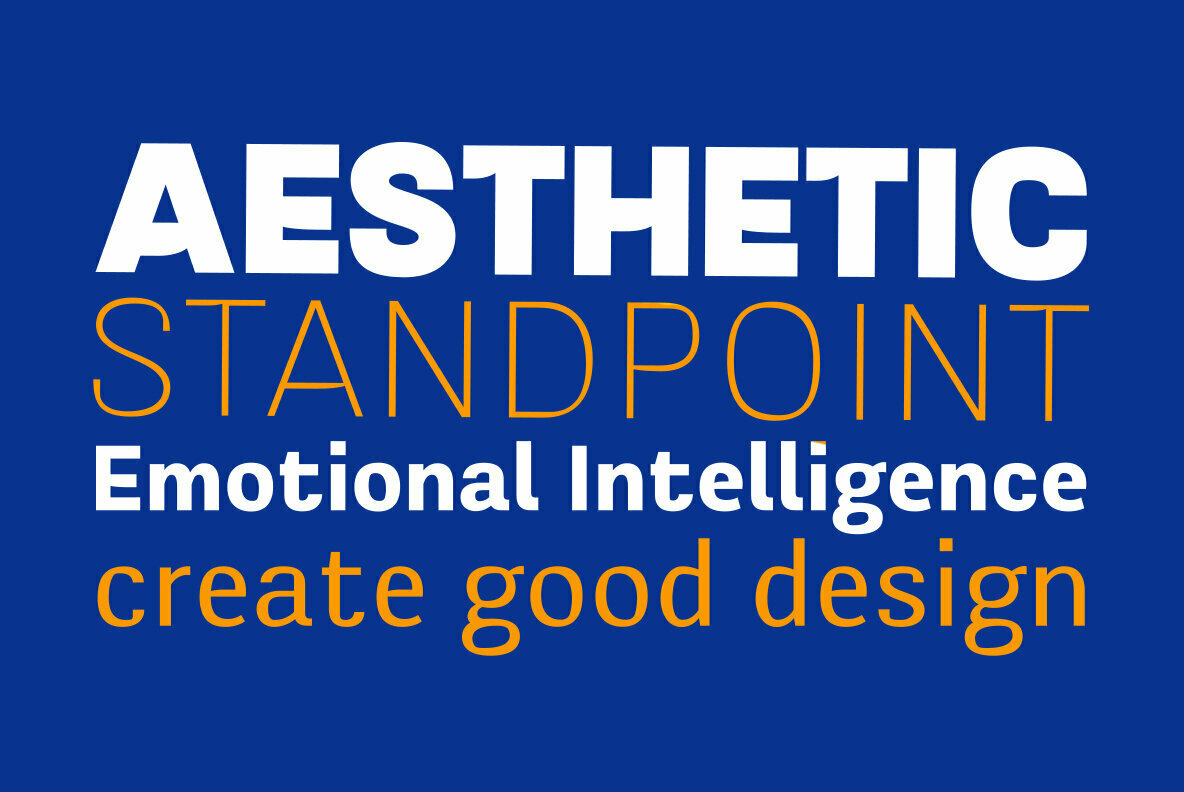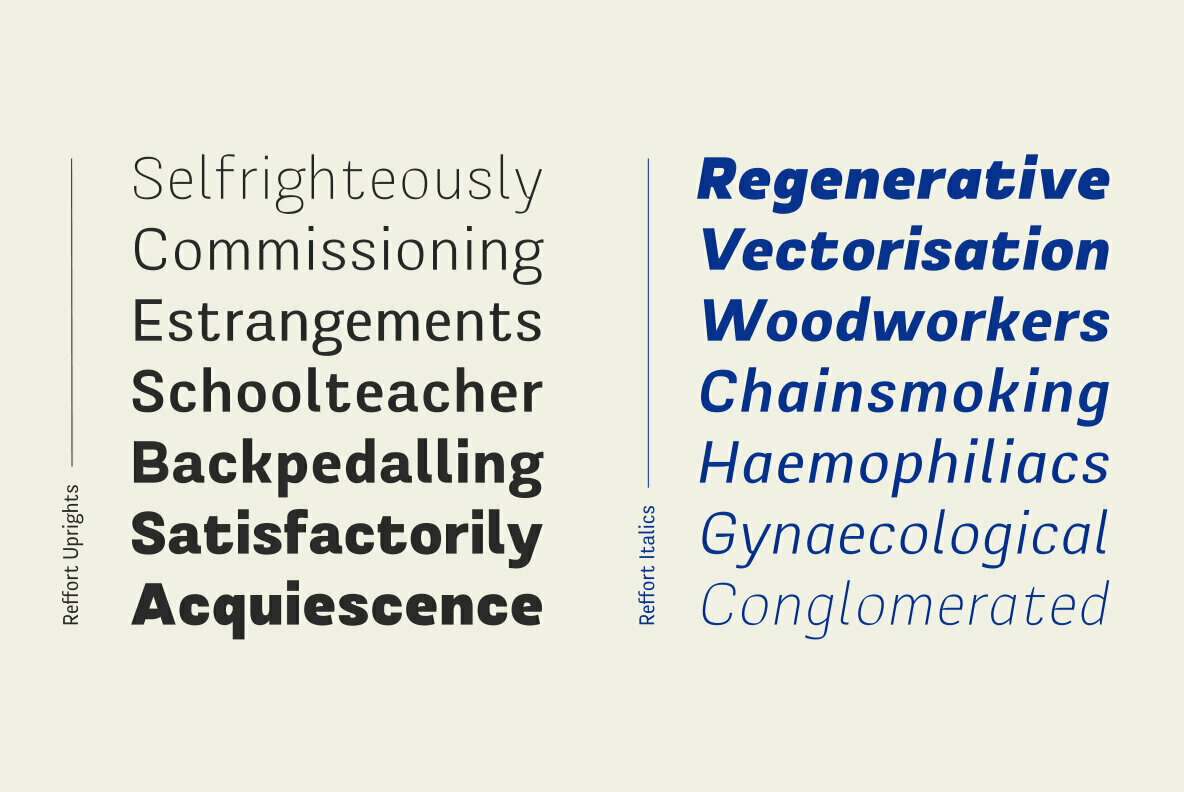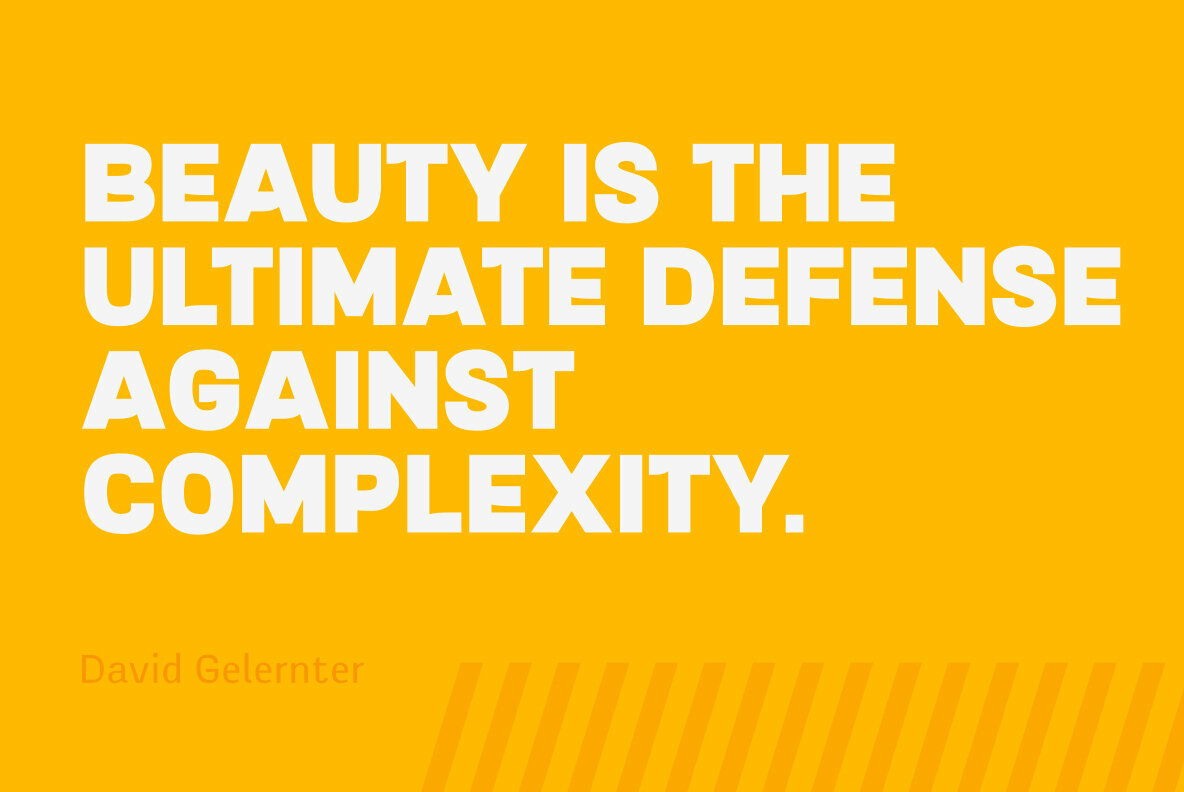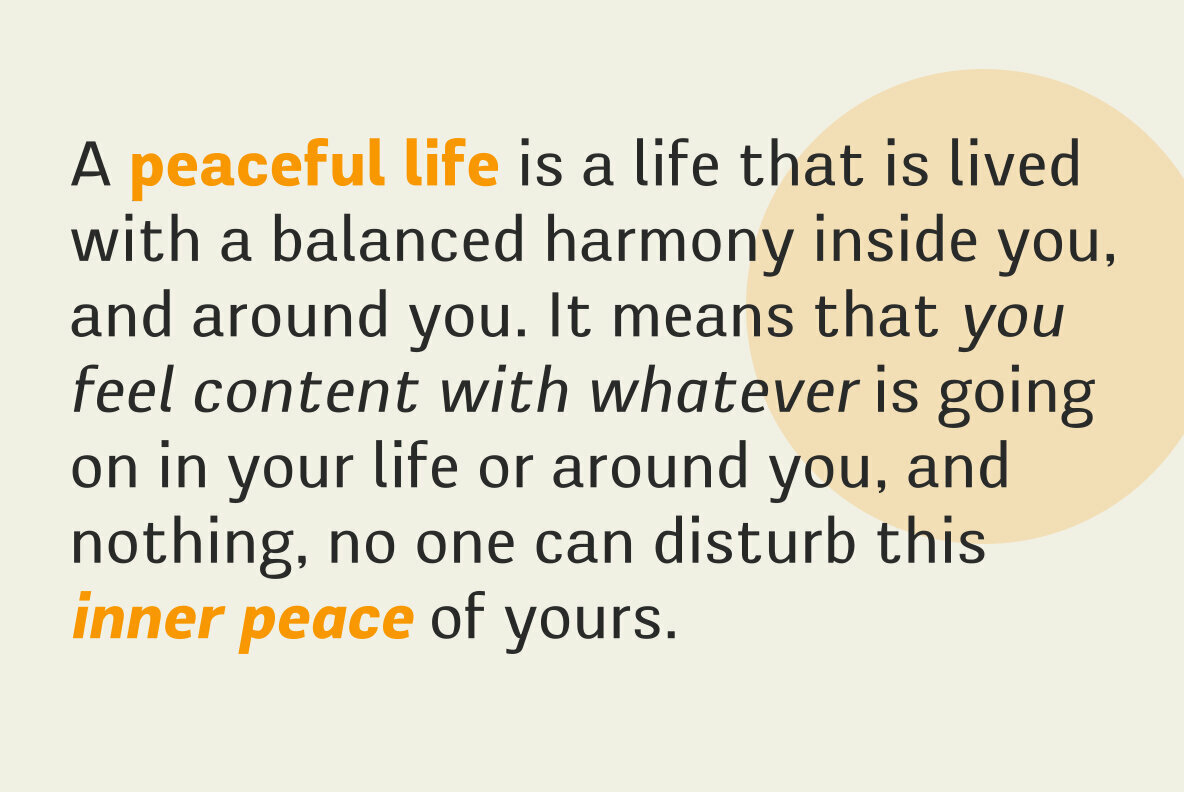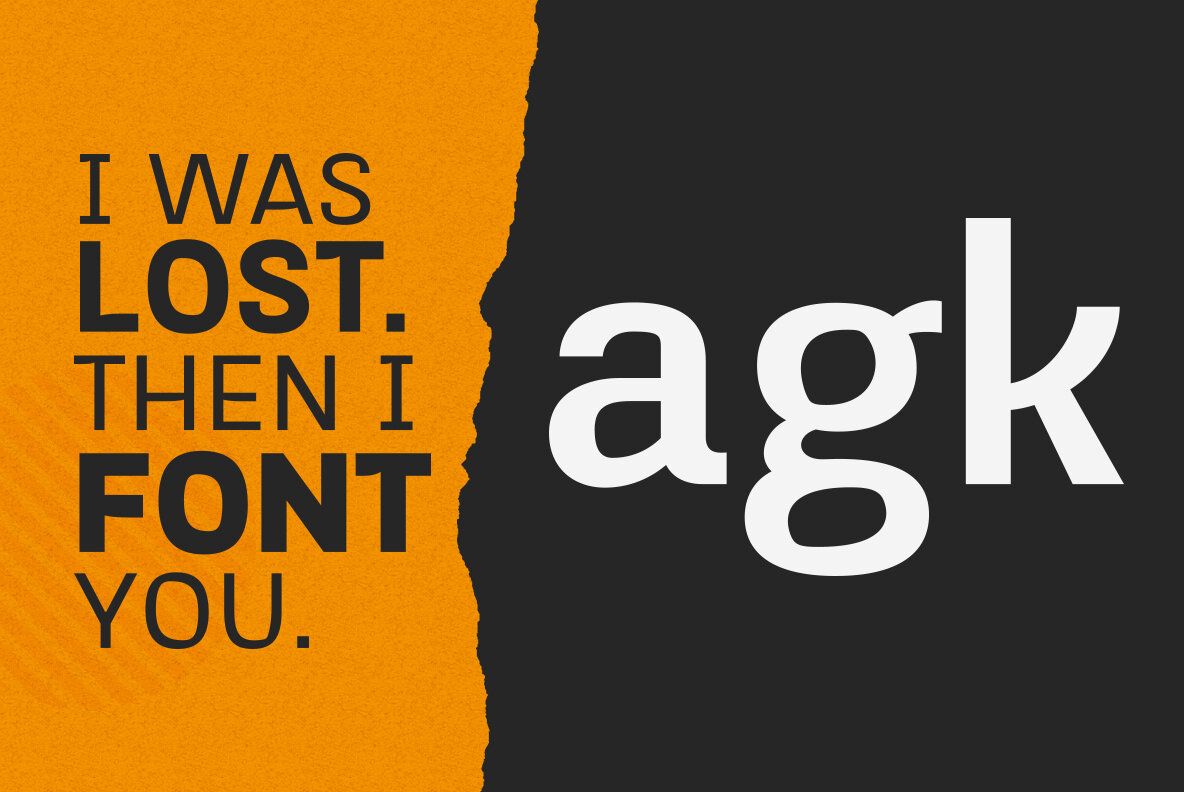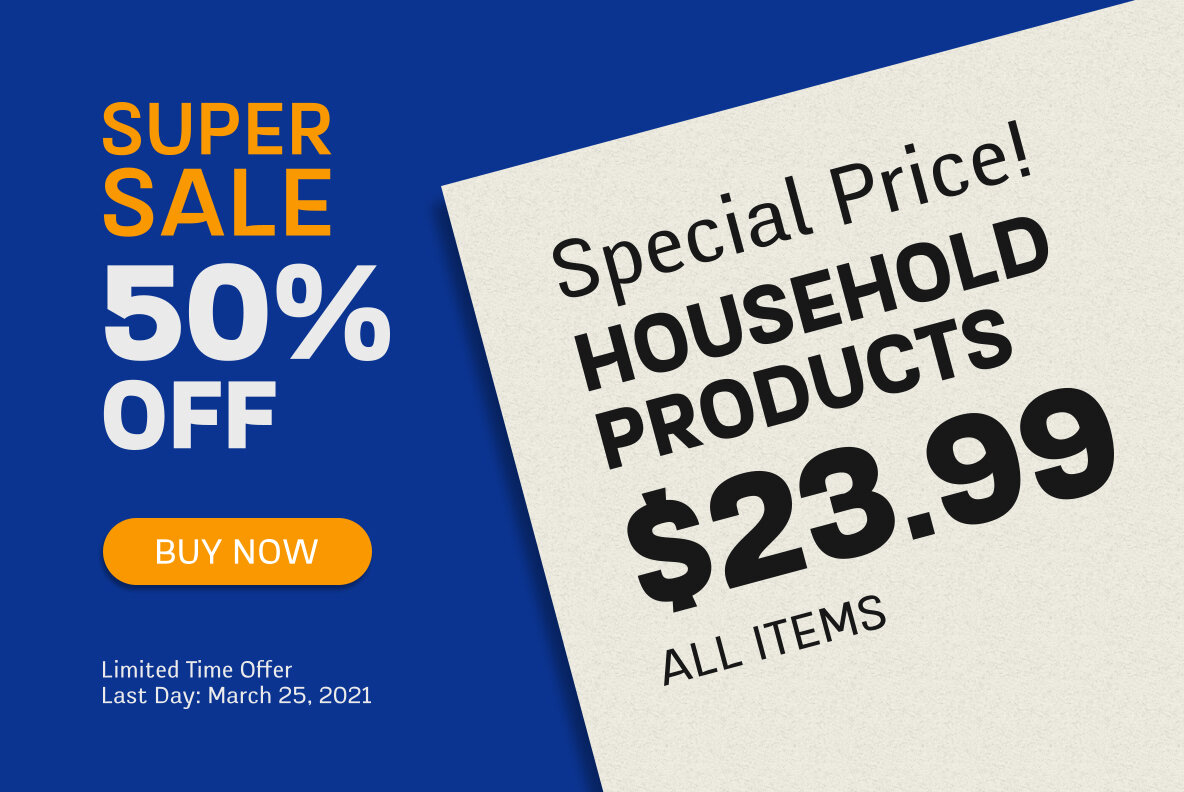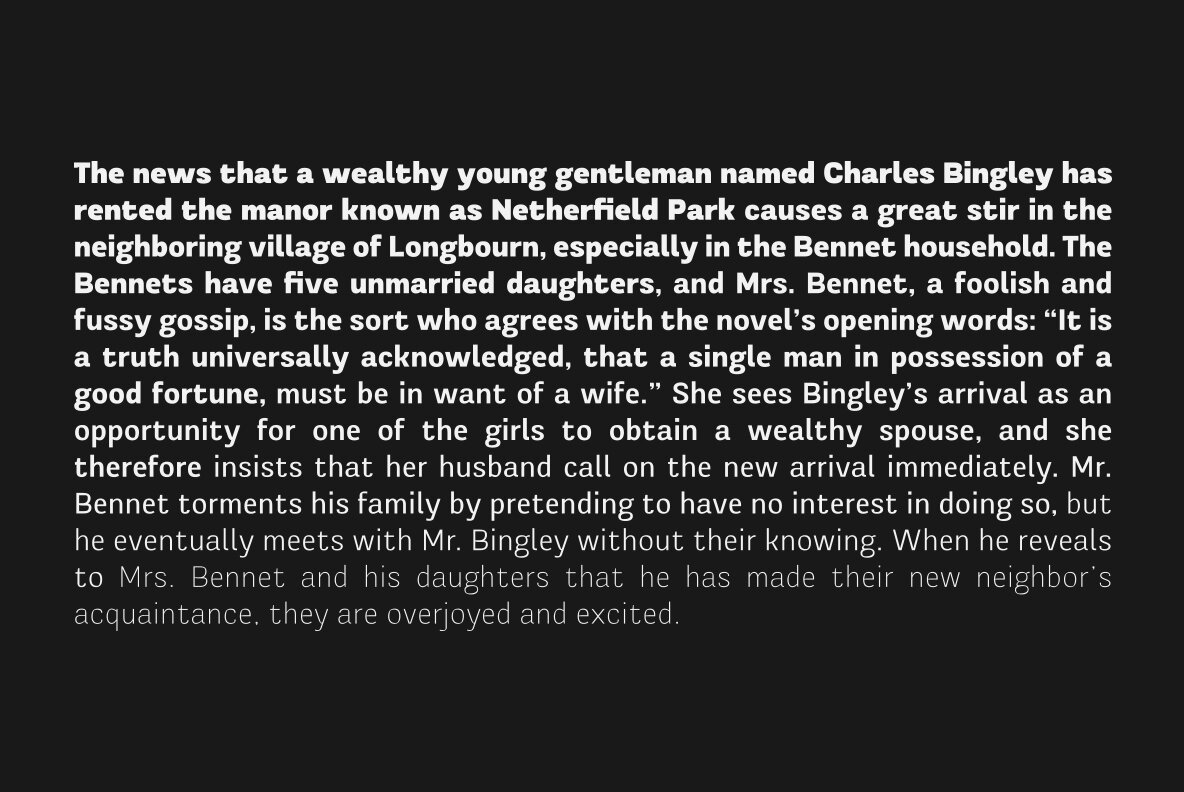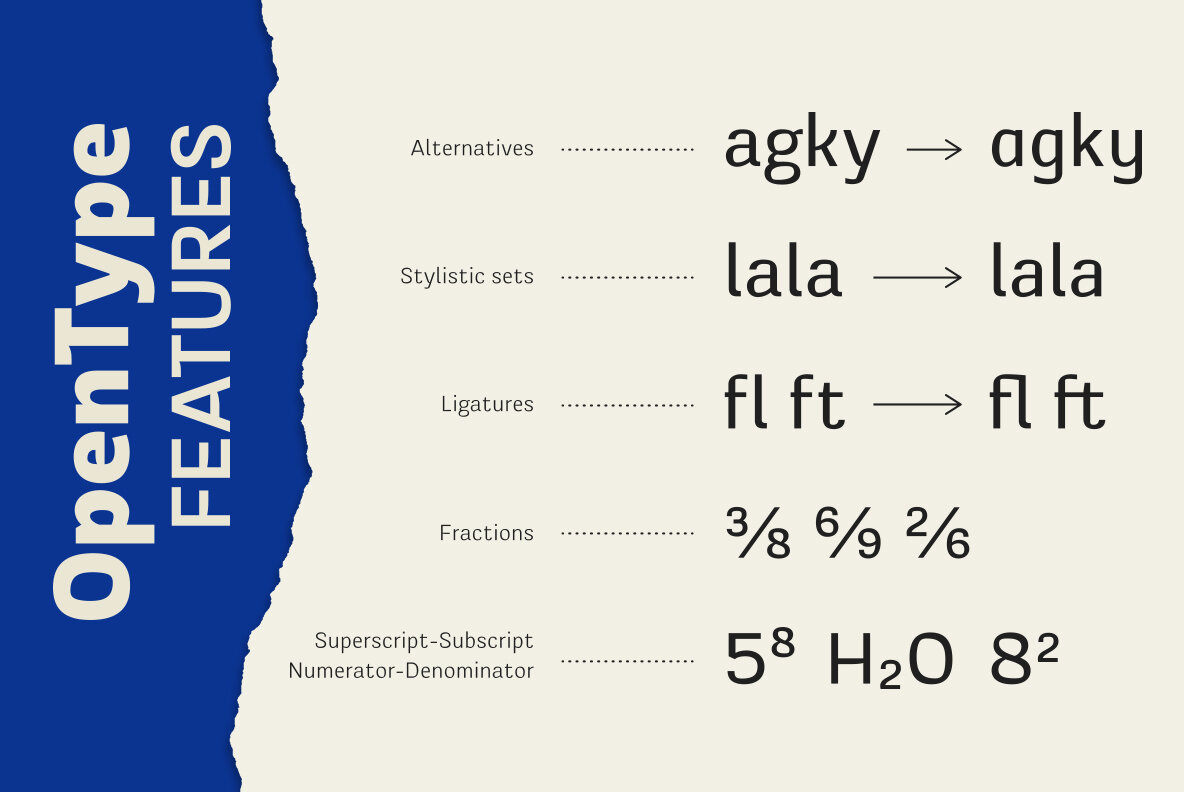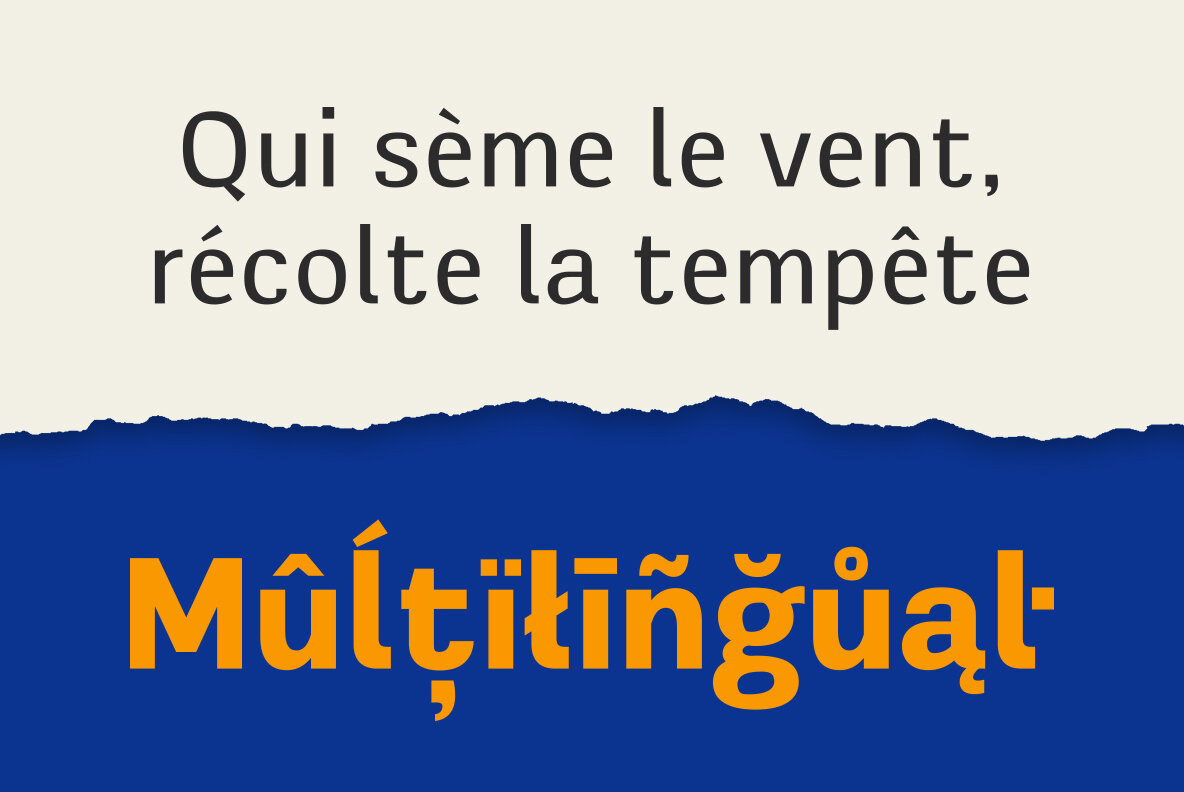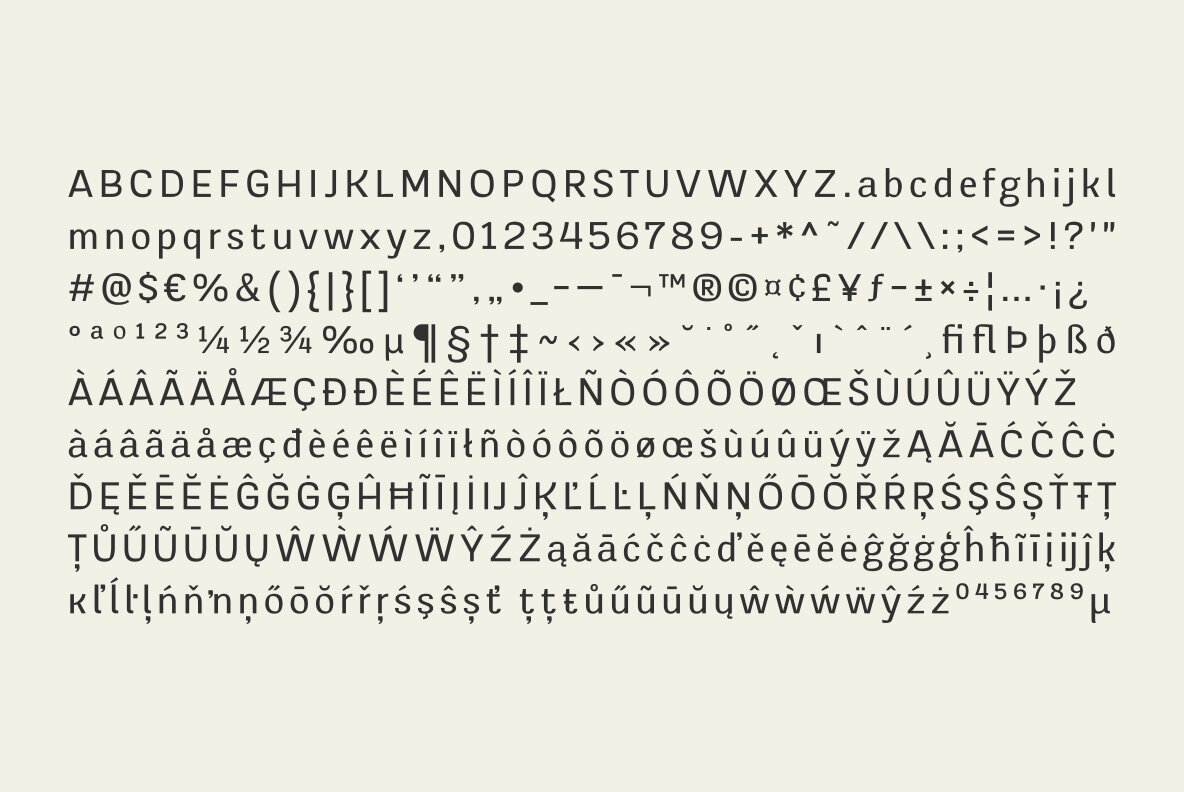
Reffort Font
Reffort by Locomotype introduces a refined take on the classic sans serif style, offering a subtle yet distinctive look that sets it apart. Designed with meticulous attention to detail, its customizable elements allow for engaging visual expression. Available in both regular and italic styles, Reffort offers two variable versions, each boasting seven distinct weights. Ideal for a broad range of creative applications, Reffort effortlessly adapts to diverse design needs. From graphic design to packaging, web interfaces to signage, and advertising to logotypes, its versatility extends even to editorial design, making it perfect for longer texts.Reffort: Distinctive Sans Serif Font